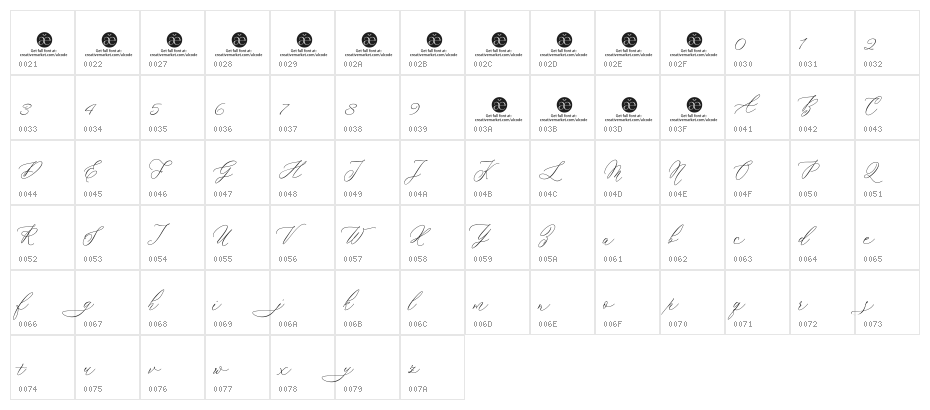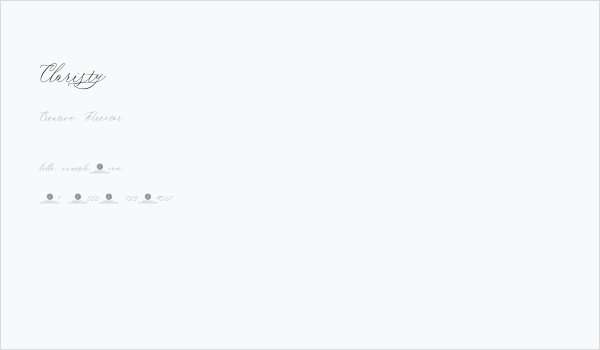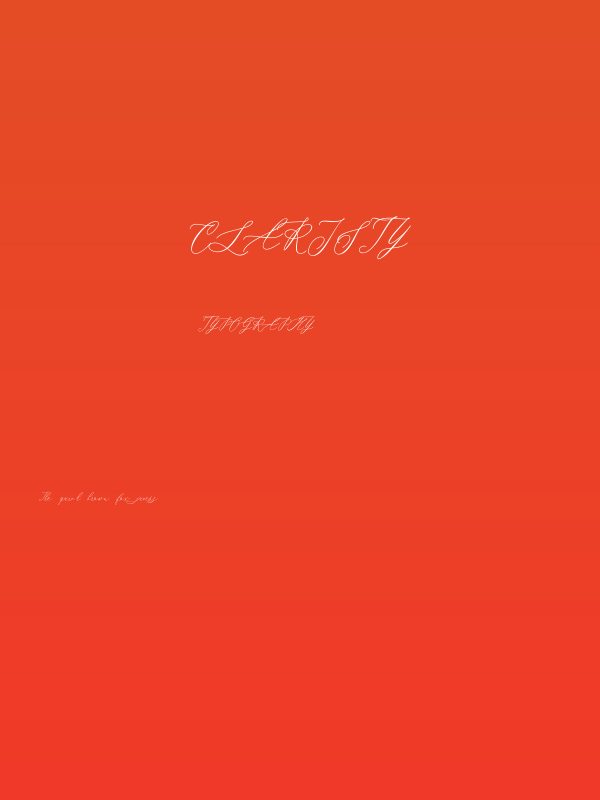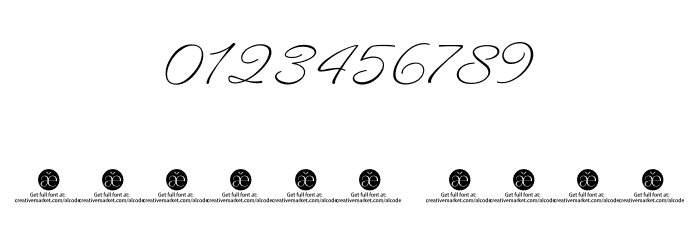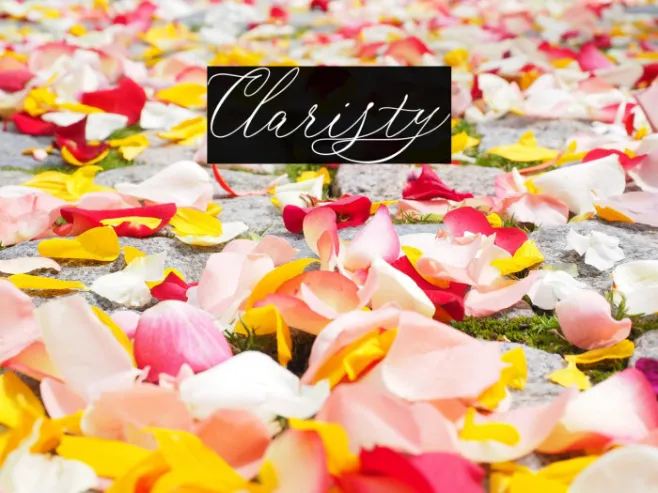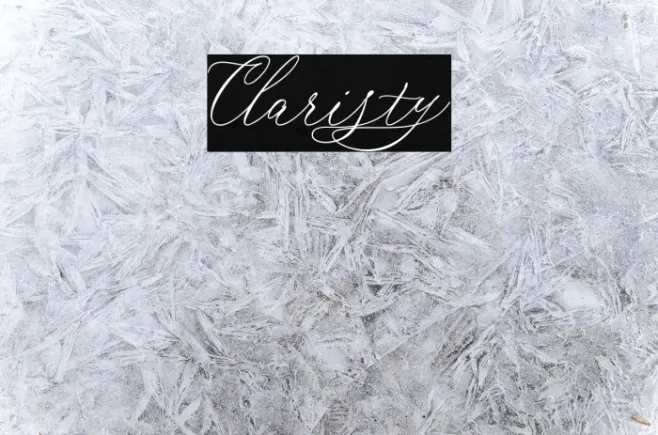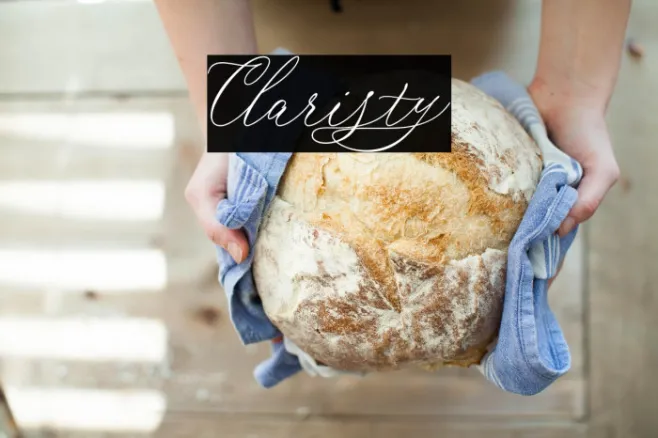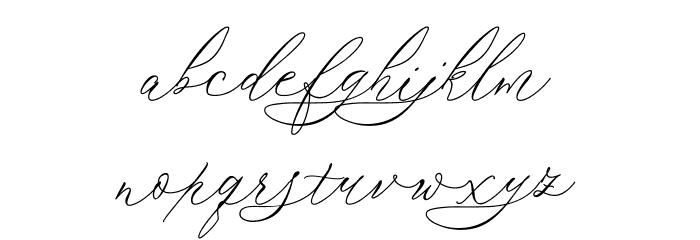
Claristy Font
Claristy Description
This elegant script font features flowing, interconnected letters that exude a sense of sophistication and grace. The uppercase letters are particularly ornate, with sweeping curves and flourishes that add a decorative touch. The lowercase letters maintain a consistent style, with smooth transitions and a slightly slanted orientation, enhancing the overall fluidity of the design. The numerals are equally stylish, maintaining the script's delicate and refined appearance. This font is ideal for projects that require a touch of elegance and class, such as wedding invitations, formal event programs, or high-end branding materials.